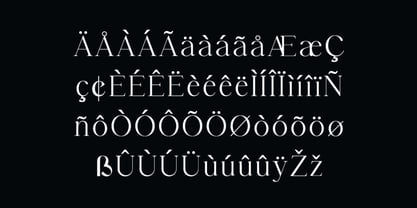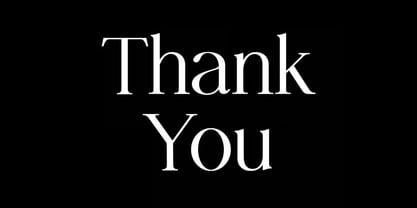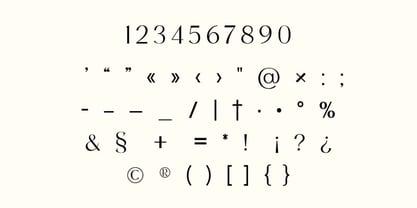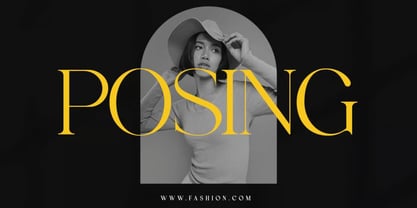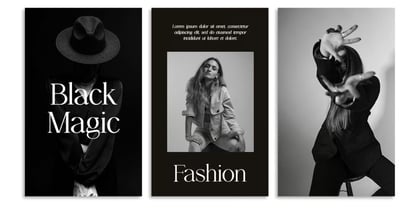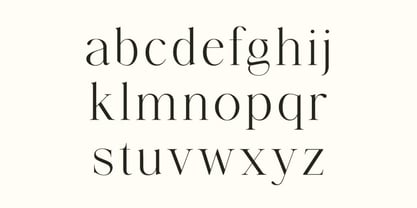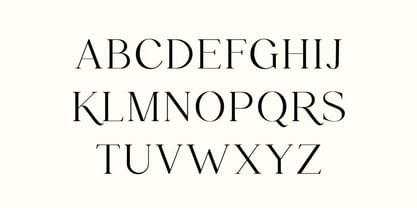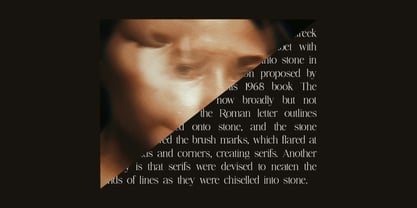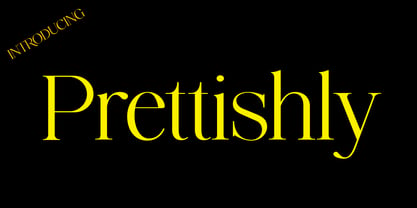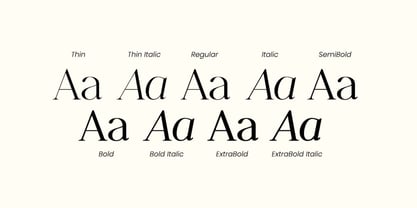
Prettishly
Prettishly is a beautiful modern serif font that combines classy elegance, timeless sophistication, and contemporary style into one stunning typeface. Designed with graceful letterforms and refined details, Prettishly delivers a luxurious aesthetic that makes every design feel polished, professional, and visually captivating.
Whether you're creating a sophisticated brand identity, elegant wedding stationery, premium packaging, or stylish editorial layouts, Prettishly offers the perfect balance of modern refinement and classic beauty. Its versatile design effortlessly adapts to both feminine and masculine branding, making it ideal for a wide range of creative projects.
With its clean serif structure, fashionable appearance, and excellent readability, Prettishly is a must-have font for designers seeking a premium typography solution for high-end branding and visual storytelling.
Key Features:
• Elegant Modern Serif Design: Beautifully crafted letterforms with timeless sophistication.
• Luxury Typography Style: Perfect for premium branding and upscale creative projects.
• Uppercase & Lowercase Characters: Complete alphabet for versatile design applications.
• Numbers & Symbols: Includes essential numerals and punctuation marks.
• Extensive Multilingual Support: Supports a wide range of international languages and special characters.
• Clean & Professional Letterforms: Designed for exceptional readability and visual impact.
• Versatile Design Aesthetic: Suitable for both feminine and masculine branding concepts.
Perfect For:
• Luxury Branding & Logo Design: Create elegant and memorable visual identities.
• Wedding Invitations & Stationery: Perfect for sophisticated event designs.
• Signature Logos & Personal Branding: Add a refined and exclusive touch.
• Fashion Branding & Editorial Design: Ideal for fashion labels, magazines, and lookbooks.
• Book Covers & Magazine Layouts: Create stunning headlines and editorial compositions.
• Website Headers & Digital Content: Enhance websites with stylish typography.
• Product Packaging & Labels: Perfect for beauty, lifestyle, fashion, and luxury products.
• Typography Quotes & Social Media Graphics: Create eye-catching and shareable designs.
Elevate your creative projects with Prettishly—a beautiful, classy, elegant, and modern serif font crafted for luxury branding, editorial design, wedding stationery, fashion labels, logos, packaging, and sophisticated visual experiences. Create timeless designs that leave a lasting impression.